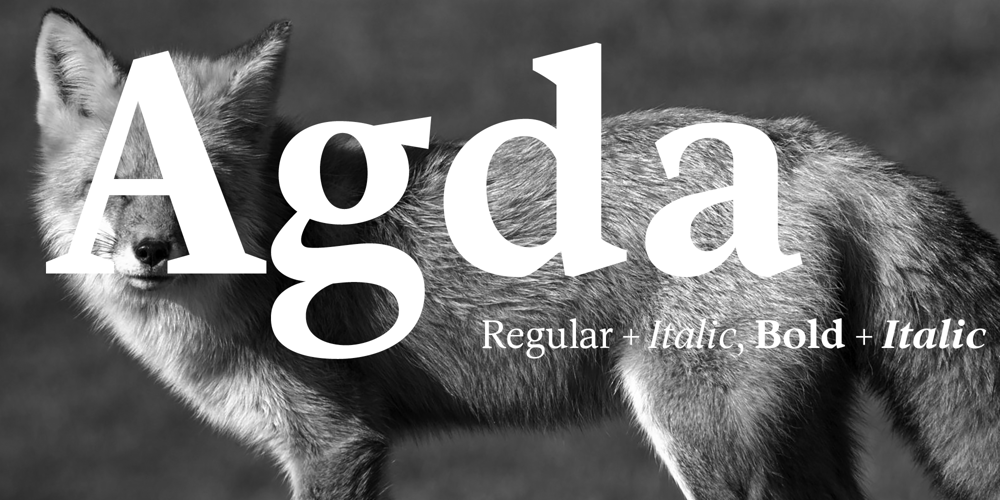
Agda
Agda font
Agda Font Family was designed by Poul Allan and published by Poul Allan Studio. Agda contains 4 styles and family package options. Agda is inspired by old typographic engravings, mostly from the second half of the 18th century. I chose the most relevant details as a source of inspiration and instead of doing a revival or an interpretation, I started from scratch to create an original font family. The goal was to achieve a very distinctive family, functional and versatile at the same time.One of the most distinctive features of Agda are sharply cut serifs that add a touch of industrial look.Agda is available in Regular, Italic, Bold and Bold Italic, allowing for a range of options when it comes to design.With old-fashioned numbers and standard f-ligatures, Agda offers the perfect balance between historic design and modern functionality. Agda are very easy to use in a variety of your design work, such as posters, company logos, company brochures, magazines, book covers, business cards, clothing,Take your design to the next level with Agda. Its historically inspired design and unique features are sure to add a touch of elegance and sophistication to any project, making it the perfect choice for designers looking to create something remarkable./Poul allan